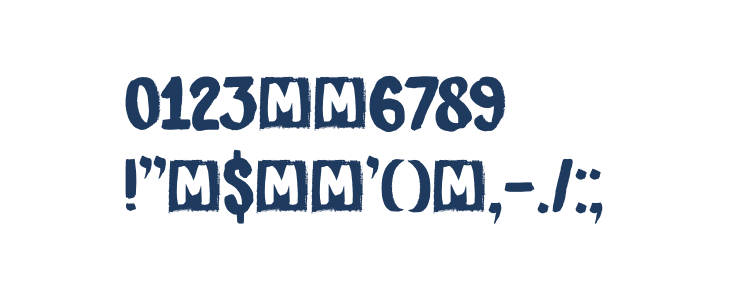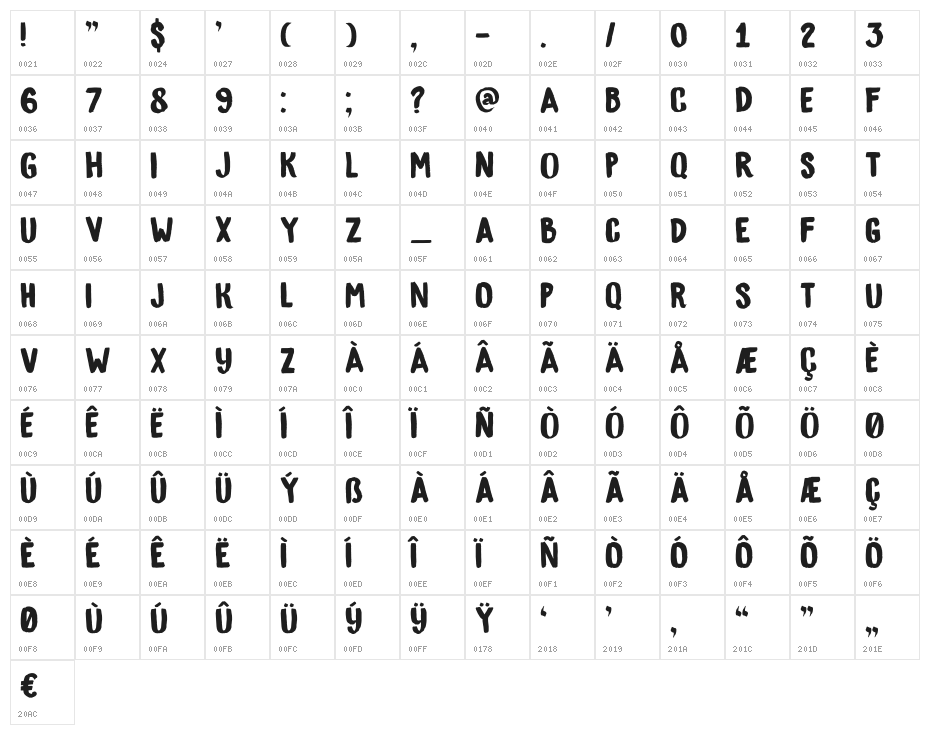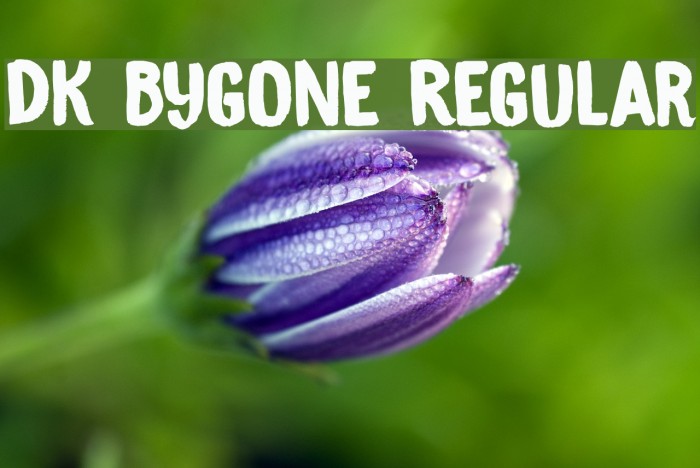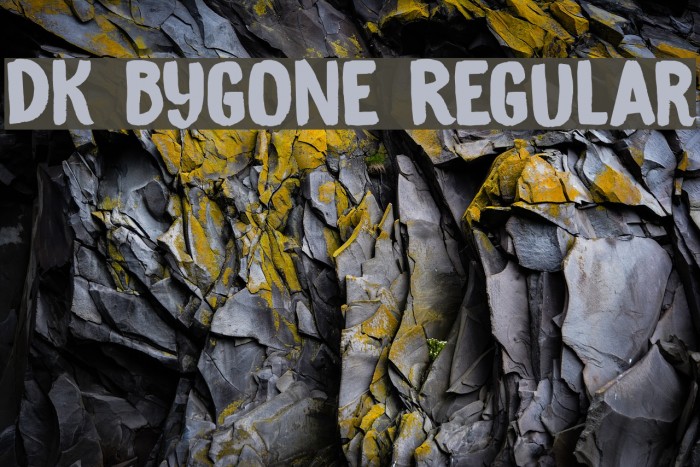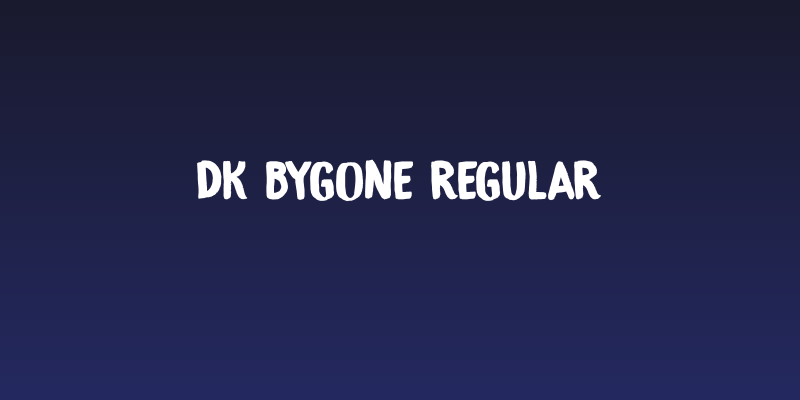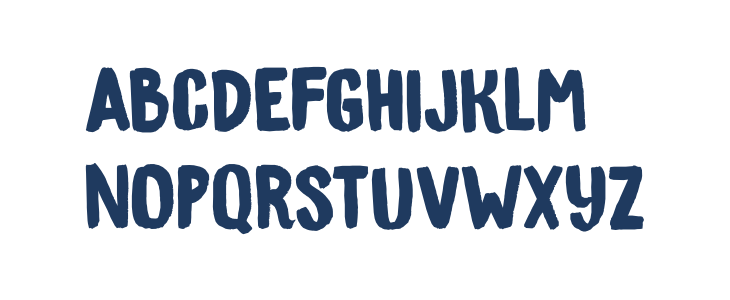
DK Bygone Regular Font
DK Bygone Regular Description
This font features a bold and rugged style with a hand-painted appearance. The characters are thick and have a slightly uneven texture, giving them a vintage and organic feel. The uppercase and lowercase letters maintain a consistent weight, contributing to a cohesive look. The numbers and special characters follow the same stylistic approach, ensuring uniformity across all glyphs. The font's boldness and distinctiveness make it ideal for projects that require a strong visual impact.